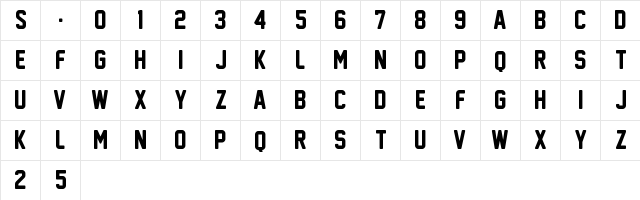
New Athletic M54 Regular
| Designer | Mohammed Rahman |
Design Context for New Athletic M54 Typeface
New Athletic M54 brings high-energy athletic personality to the page — its confident, muscular forms are built for impact.
A natural choice for gym brands, fantasy sports, jersey lettering, and action-driven headlines.
Font Pairing: Use alongside a condensed or geometric sans for supporting copy — keep the pairing bold, functional, and free of ornament.
Pro Tip: Use New Athletic M54 in all-caps headlines where its athletic energy can fully express itself. Pair with a solid, simple sans for supporting text.